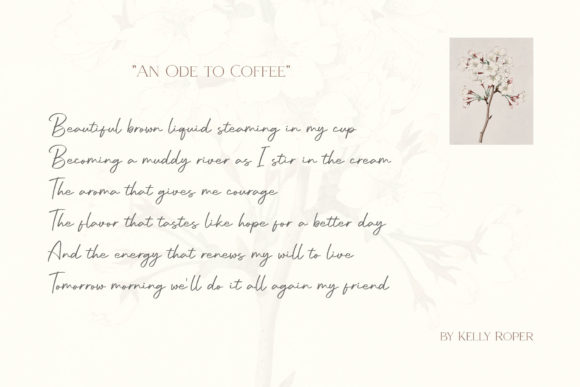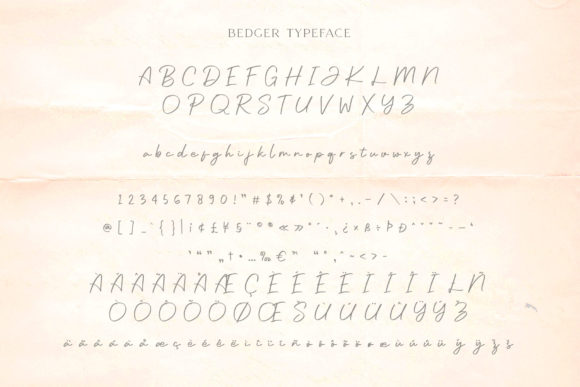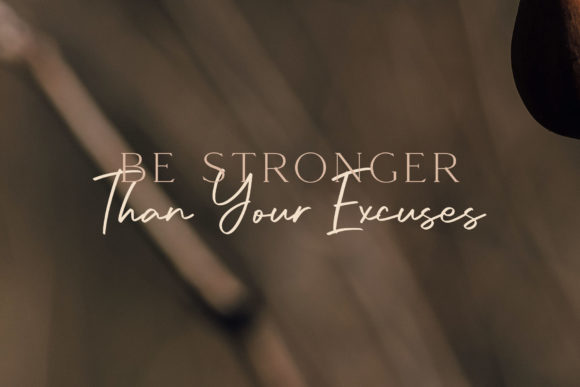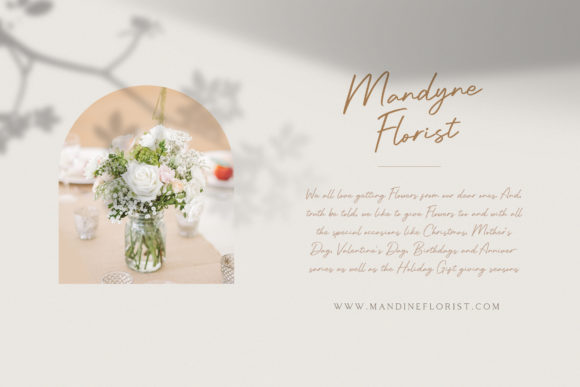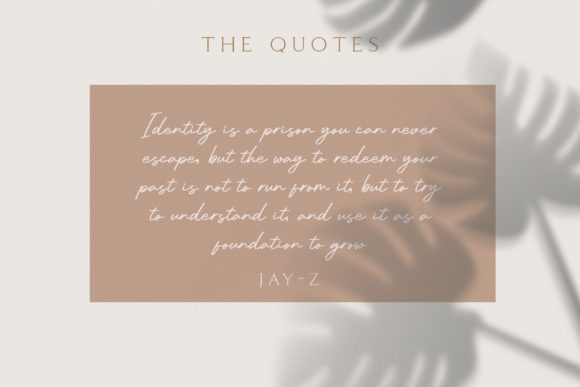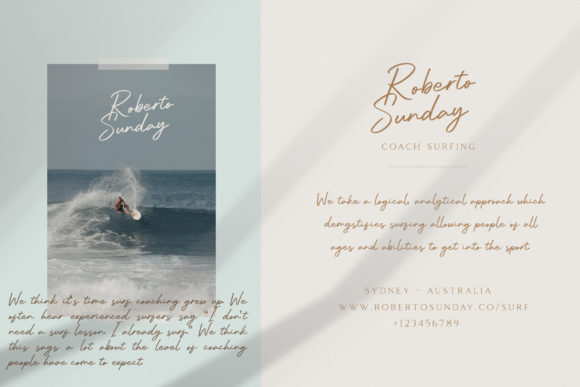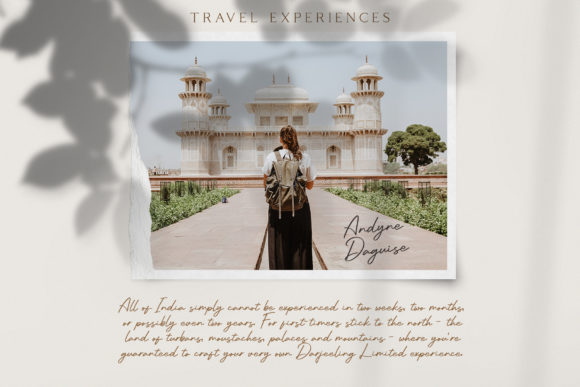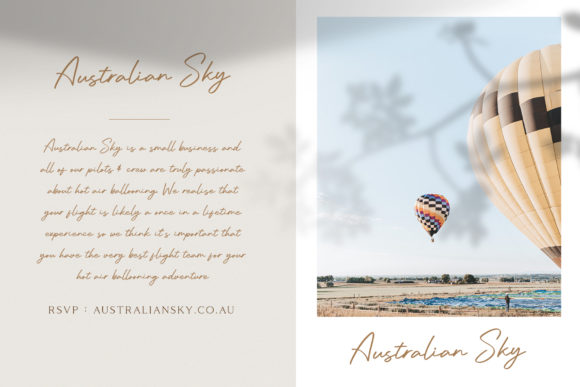
Bedger Font
About Bedger Font
Bedger is a charming and friendly handwritten font that adds a touch of sweetness to your designs. With its natural and inviting style, this font is perfect for creating realistic and engaging designs that capture attention.
Whether you’re working on social media graphics, invitations, greeting cards, branding materials, or any other design project, Bedger brings a warm and welcoming feel to your typography. Its handcrafted appearance gives it an authentic and personal touch, making it ideal for adding a sense of warmth and friendliness to your designs.
The versatility of Bedger allows it to adapt to various design styles and themes. Its playful and approachable nature makes it suitable for a wide range of applications, from casual and lighthearted projects to more serious and professional designs. The smooth and flowing letterforms of Bedger create a harmonious rhythm that adds a sense of cohesiveness to your typography.
By using Bedger, you can elevate your ideas and bring them to life in a more relatable and realistic way. The font’s friendly and inviting nature helps establish a connection with your audience, making your designs more engaging and memorable.
One of the great features of Bedger is its ability to evoke a sense of authenticity and personal touch. The irregularities and imperfections in the letterforms give the font a hand-drawn feel, adding a sense of uniqueness to your designs. This authenticity sets Bedger apart and makes it stand out in a sea of more generic and predictable fonts.
Whether you’re creating social media posts, packaging designs, handwritten quotes, or any other project that requires a touch of friendliness, Bedger is a wonderful choice. Its versatility and realistic style allow you to bring your ideas to life in a way that resonates with your audience.
In summary, Bedger is a sweet and friendly handwritten font that adds a touch of warmth and authenticity to your designs. Its versatility and inviting style make it suitable for a wide range of projects. Use Bedger to make your ideas more realistic, engaging, and memorable.